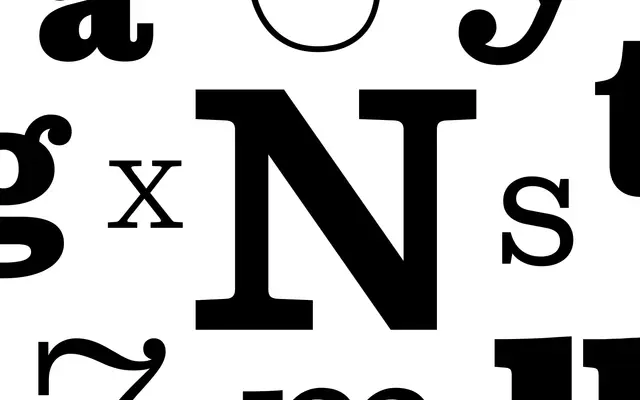
Consort Recast
A faithful revival of Stephenson Blake's 1956 slab serif by Yingtong Tan, returning with Weight and Width variable axes for editorial and poster work.
A slab serif by Yingtong Tan that revives Stephenson Blake's 1956 Consort, the foundry's mid-century workhorse. Nine weights run from Hairline to Black across Condensed and Normal widths, and a 2-axis variable font lets you tune Weight and Width for posters, mastheads and editorial systems. The character feels period-correct without being precious; sturdy slabs, even rhythm, contemporary control.
Dalton Maag describe Consort Recast as a faithful revival of Stephenson Blake's 1956 mid-century slab serif, returning with extensive Weight and Width variable axes that pair vintage sturdiness with contemporary control.